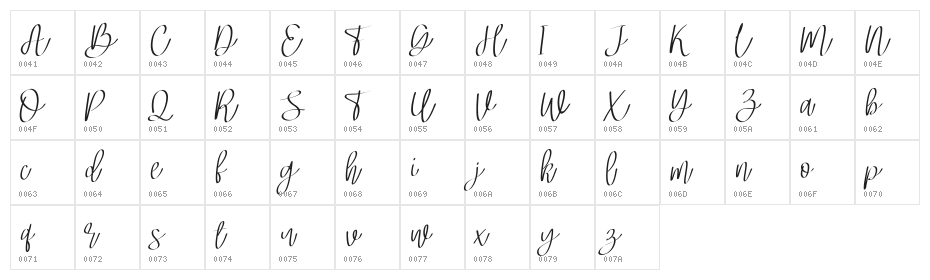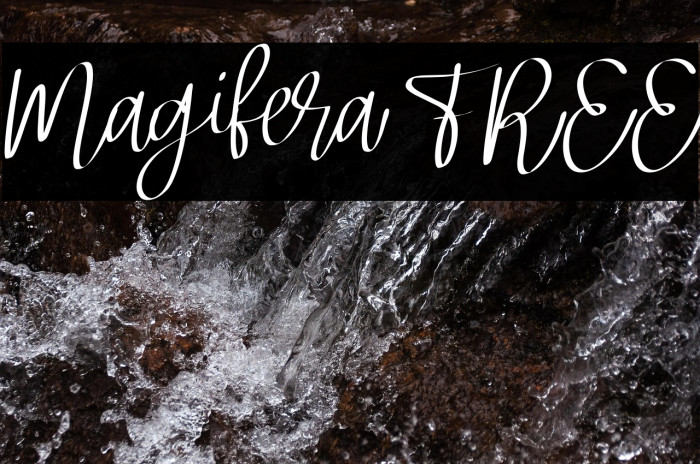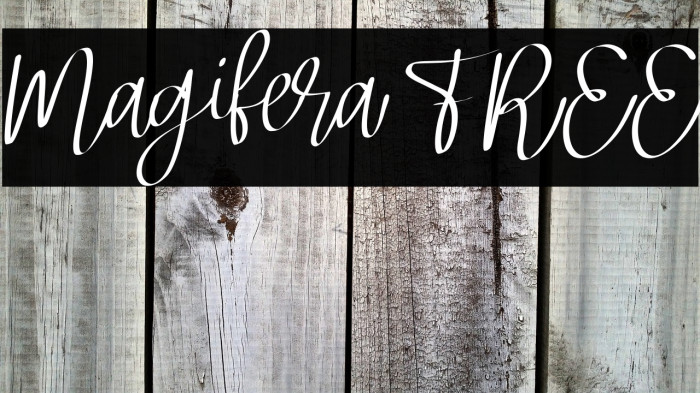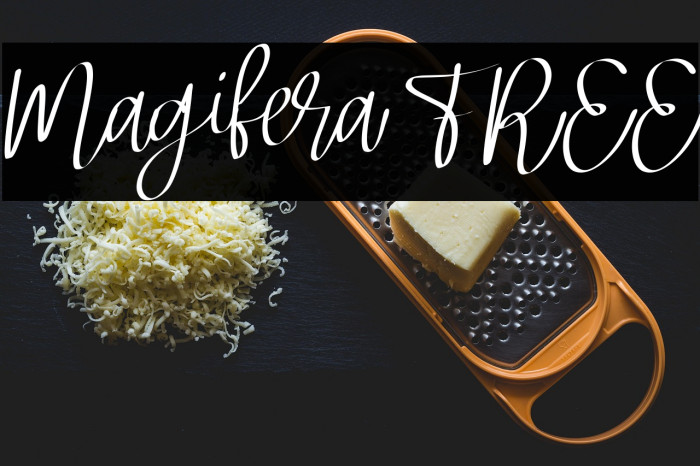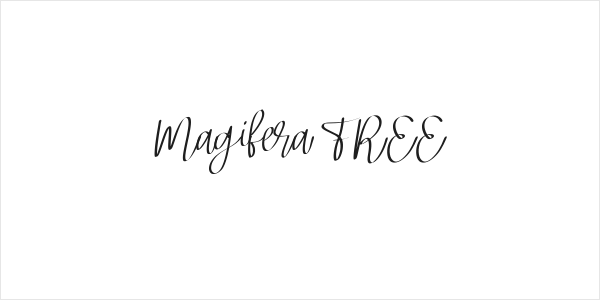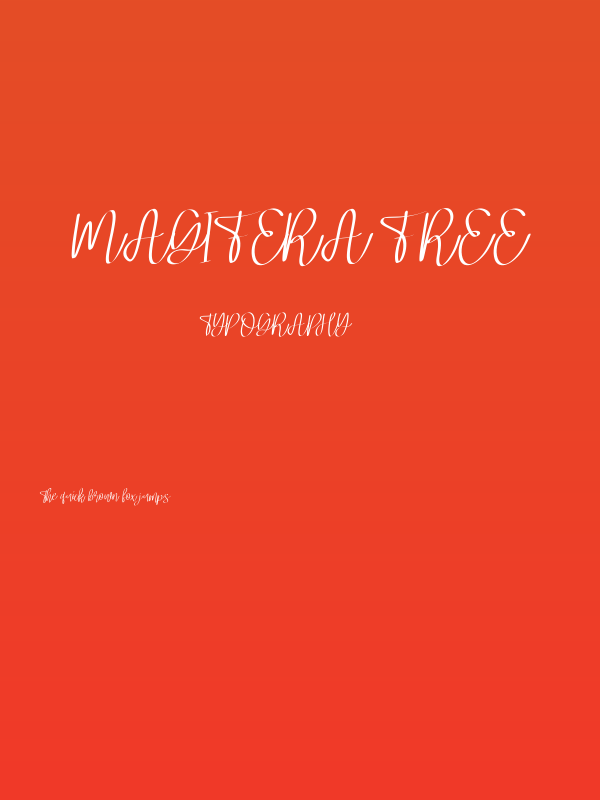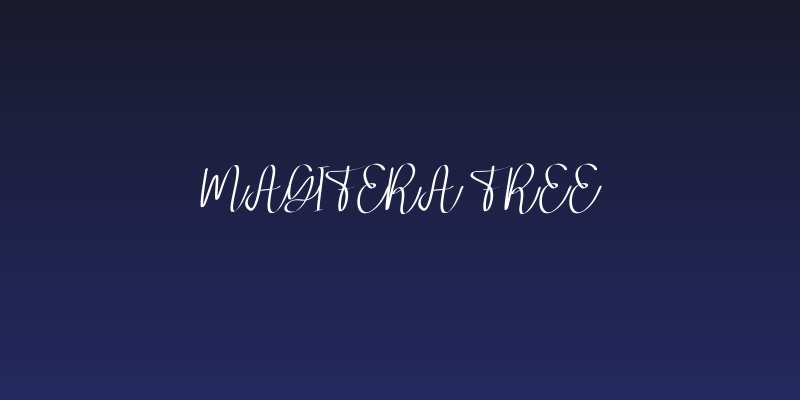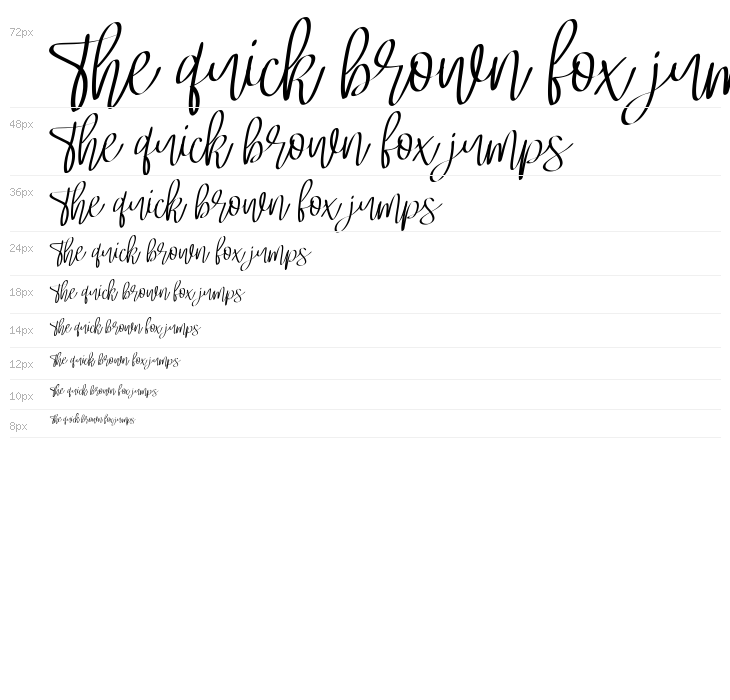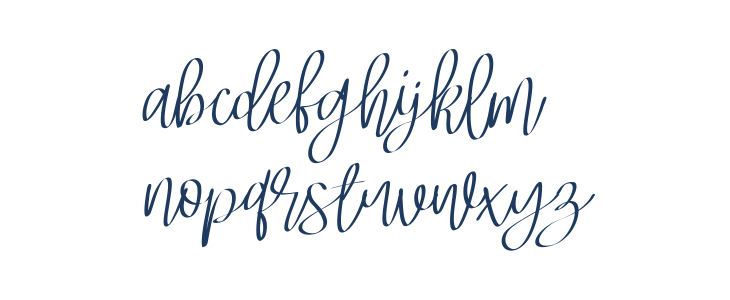
Magifera FREE Font
Magifera FREE Description
This font features an elegant and flowing script style, characterized by its smooth, cursive lines and graceful curves. The letters are interconnected, giving a sense of fluidity and movement. The uppercase letters are ornate, with elaborate loops and swirls, while the lowercase letters maintain a more restrained yet still decorative appearance. This font exudes a sense of sophistication and charm, making it ideal for projects that require a touch of elegance. The overall appearance is both stylish and readable, suitable for various design applications.
| Overall Style | Elegant |
| Use Case | Logos, Invitations, Greeting Cards |
| Proposed Projects | Ideal for wedding invitations, greeting cards, branding, and elegant logo designs. |